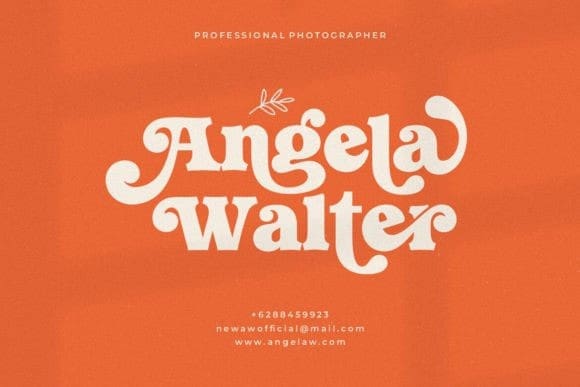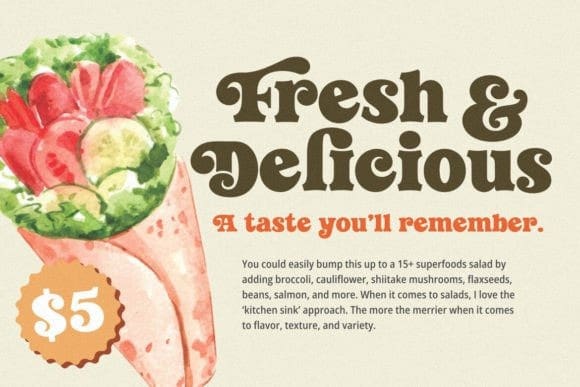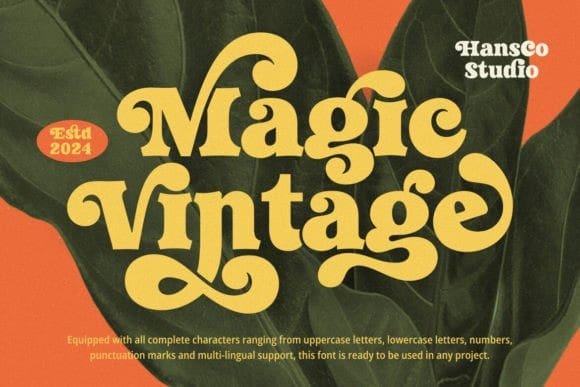
Magic Vintage Typeface
Magic Vintage Typeface is a bold retro serif font that encapsulates the essence of vintage design. With its strong, confident letterforms and timeless charm, it evokes nostalgia and elegance. Perfect for posters, logos, and branding projects, MagicVintage adds a touch of retro flair to any creative endeavor.